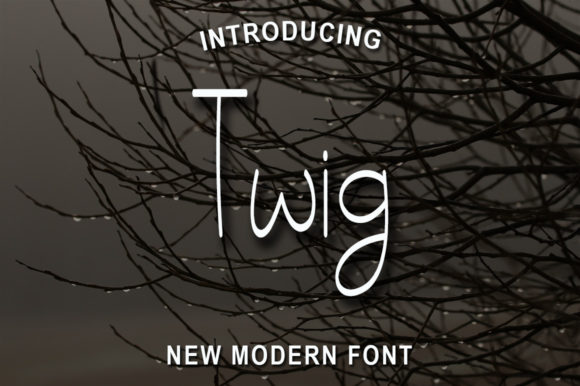
Step into the world of Twig Font – a stroke of elegance for your official letters, a whisper of creativity for your invitations, and a sprinkle of charm for your branding. This captivating script font, meticulously crafted by morningtimestudio, is more than just a typeface – it's an experience, an expression, a statement.
With its graceful curves and elegant lines, Twig Font exudes a touch of sophistication that elevates your words into a symphony of grace. Its smooth, flowing strokes create an enchanting rhythm that captivates readers, drawing them into the depths of your message.
Twig Font isn't just beautiful – it's versatile, too. From formal letters that demand attention to invitations that promise a night of enchantment, from branding that exudes professionalism to social media posts that spark curiosity – Twig Font adapts seamlessly, like a chameleon of creativity.
This captivating font adds a dash of playfulness to your official letters, making them stand out from the mundane. Picture your words dancing across the page, each letter a work of art, each word a masterpiece. Twig Font transforms your letters into something more than mere communication – they become expressions of your unique style and personality.
Imagine your invitations adorned with Twig Font's alluring curves. They'll be more than just announcements – they'll be works of art that hint at the magic awaiting your guests. The effortless flow of Twig Font will create a sense of anticipation, promising an experience that's nothing short of extraordinary.
Branding with Twig Font is a statement of confidence and creativity. Its elegant lines and graceful curves evoke a sense of professionalism and sophistication, setting your brand apart from the ordinary. Your logo, business cards, and marketing materials will radiate with an air of distinction, leaving a lasting impression on your clients.
Unleash your creativity on social media with Twig Font. Its enchanting style will make your posts leap off the screen, captivating your audience and keeping them engaged. Your words will resonate with a unique charm, inviting them to like, share, and comment, propelling your social media presence to new heights.